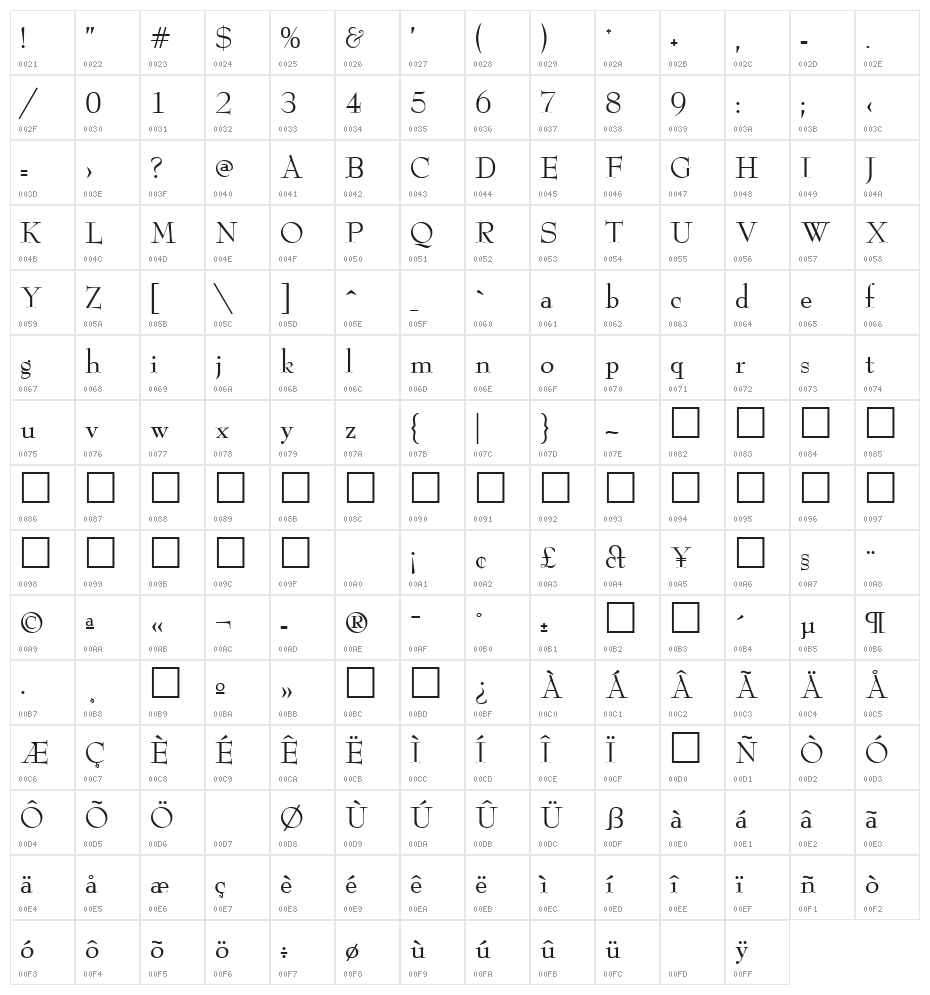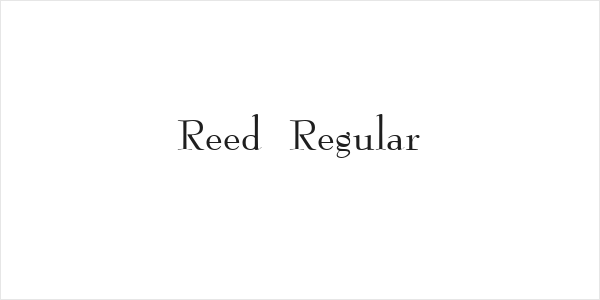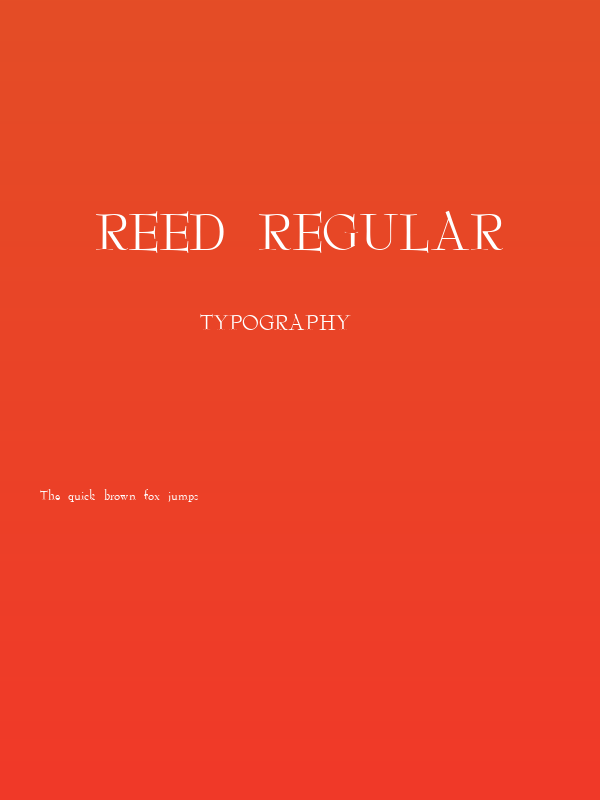
Reed Regular Font
Reed Regular Description
This font features a classic serif style with elegant, sharp serifs that give it a sophisticated and timeless appearance. The uppercase letters are bold and commanding, while the lowercase letters maintain a graceful balance with their slightly rounded forms. The numerals are clear and distinct, making them easily readable. Special characters are well-integrated, maintaining the overall aesthetic of the font. The design is characterized by medium contrast in stroke thickness, which enhances readability while adding a touch of refinement. The spacing between characters is normal, ensuring a harmonious flow in text.
| Proposed Projects | Ideal for use in editorial design, book covers, formal invitations, and branding projects that require a touch of elegance and tradition. |